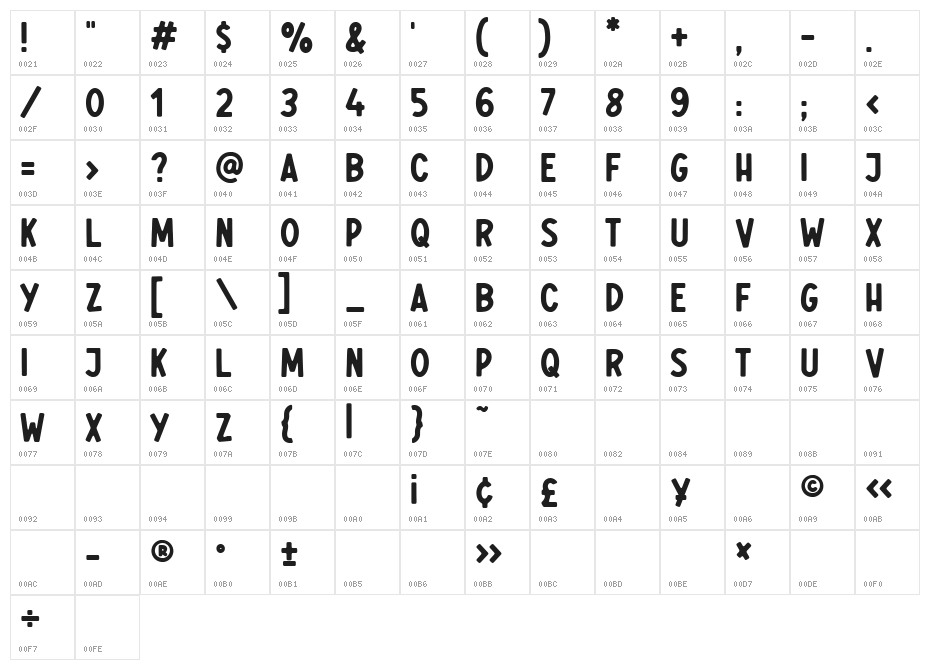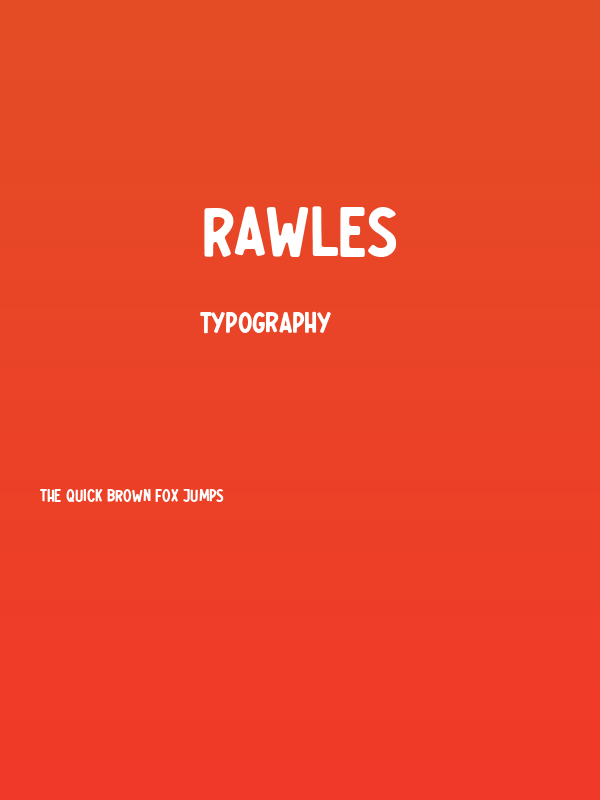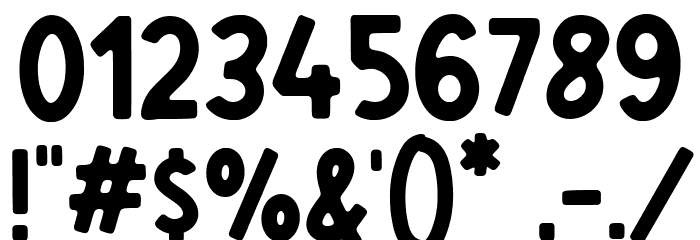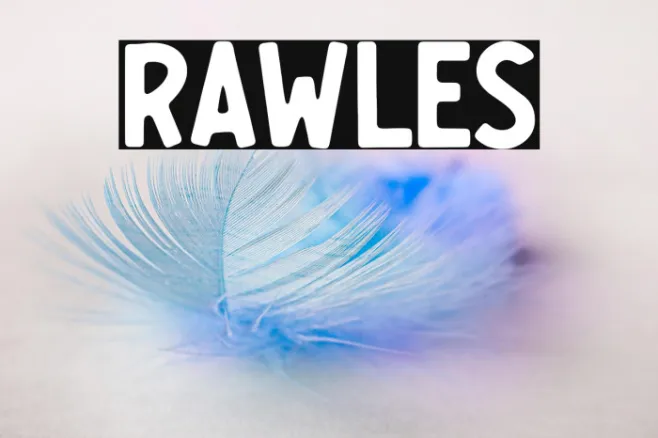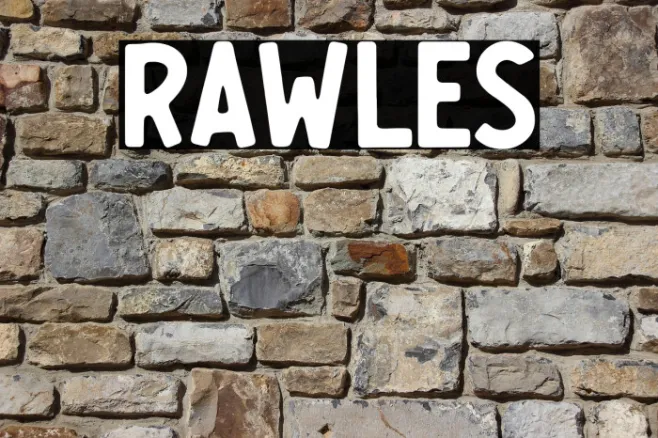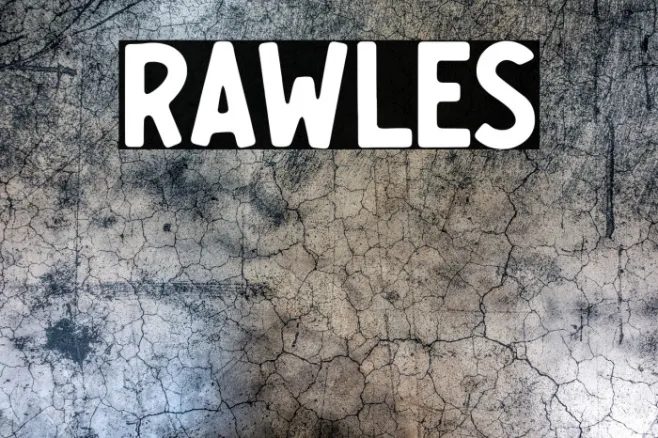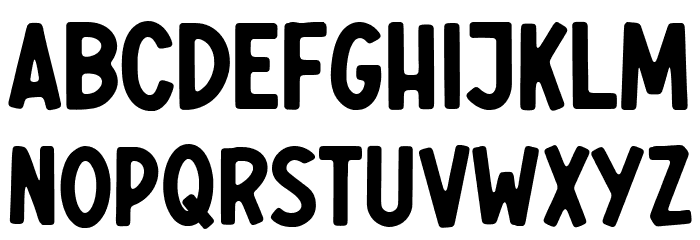
Rawles Font
Rawles Description
This font features a bold, playful style with rounded edges and a slightly irregular form that gives it a hand-drawn appearance. The characters are thick and substantial, providing a strong visual impact. The uppercase and lowercase letters maintain a consistent weight, contributing to a cohesive look. The numbers and special characters follow the same design principles, ensuring uniformity across all glyphs. This font's friendly and approachable aesthetic makes it suitable for a variety of creative applications.
RAWLES UPPERCASE
RAWLES LOWERCASE
RAWLES OTHER CHARS
| Proposed Projects | Ideal for children's books, playful branding, posters, and social media graphics. |